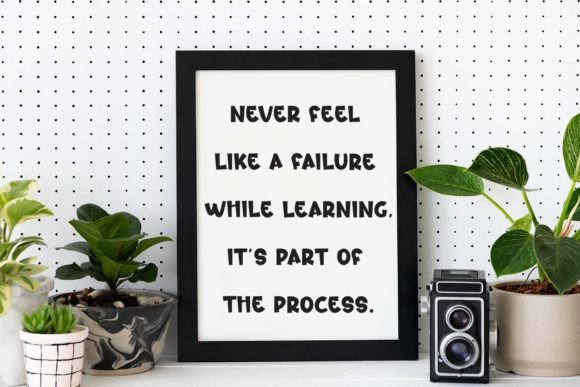
Half Time Font: The Fun and Cute Display Font for Your Creative Projects
Are you looking for a font that can add a touch of fun and cuteness to your creative projects? Look no further than the Half Time Font! This display font is perfect for designers, artists, and crafty enthusiasts who want to add a playful and whimsical touch to their work. In this article, we’ll explore the features and benefits of the Half Time Font, and show you how to use it to take your creative projects to the next level.
What is Half Time Font?
Half Time Font is a fun and cute display font that is designed to add a playful and whimsical touch to your creative projects. It’s a carefully crafted font that features bold and rounded letters, with a unique and quirky style that’s sure to grab attention.
Whether you’re working on a graphic design project, creating a craft project, or designing a website, the Half Time Font is the perfect choice. It’s a versatile font that can be used for a variety of purposes, from headings and titles to logos and branding.
Benefits of Using Half Time Font
So why choose the Half Time Font for your creative projects? Here are just a few benefits of using this fun and cute display font:
- Unique and eye-catching: The Half Time Font features a unique and quirky style that’s sure to grab attention. It’s the perfect way to add a touch of personality to your creative projects.
- Versatile: The Half Time Font is a versatile font that can be used for a variety of purposes, from headings and titles to logos and branding.
- Easy to read: Despite its playful and whimsical style, the Half Time Font is easy to read and understand. It’s perfect for use in titles, headings, and other applications where readability is important.
- Fun and playful: The Half Time Font is the perfect way to add a touch of fun and playfulness to your creative projects. It’s sure to bring a smile to the face of anyone who sees it!
How to Use Half Time Font
So how can you use the Half Time Font in your creative projects? Here are a few ideas to get you started:
- Graphic design projects: The Half Time Font is perfect for use in graphic design projects, such as brochures, flyers, and posters.
- Logos and branding: The Half Time Font is a great choice for logos and branding, adding a touch of personality and whimsy to your brand.
- Craft projects: The Half Time Font is perfect for use in craft projects, such as handmade cards, gift tags, and other paper crafts.
- Web design: The Half Time Font can be used in web design, adding a touch of fun and playfulness to your website.
Tips for Using Half Time Font
Here are a few tips for using the Half Time Font in your creative projects:
- Use it sparingly: While the Half Time Font is fun and playful, it can be overwhelming if used too much. Use it sparingly to add a touch of personality to your project.
- Pair it with other fonts: The Half Time Font pairs well with other fonts, such as sans serif fonts and script fonts. Experiment with different pairings to find the one that works best for your project.
- Experiment with colors: The Half Time Font looks great in a variety of colors, from bright and bold to pastel and soft. Experiment with different colors to find the one that works best for your project.
In conclusion, the Half Time Font is a fun and cute display font that’s perfect for adding a touch of personality to your creative projects. With its unique and eye-catching style, versatility, and ease of use, it’s the perfect choice for designers, artists, and crafty enthusiasts. So why not give it a try and see the results for yourself?